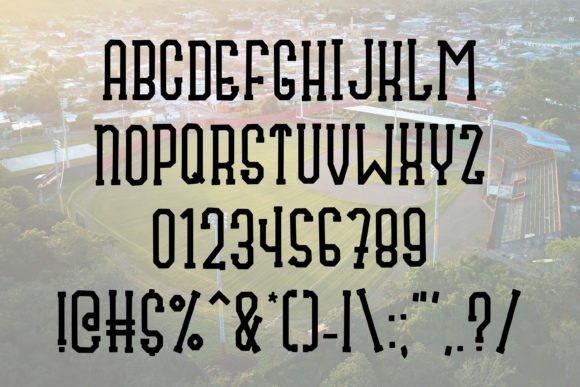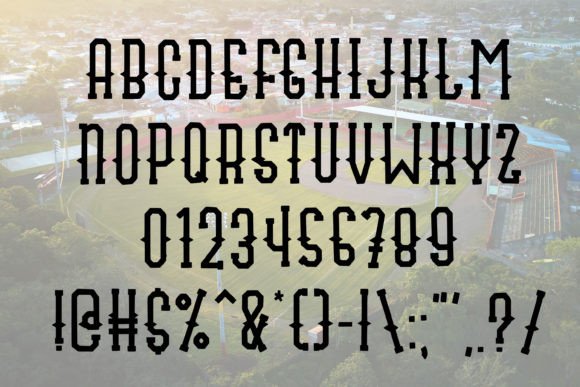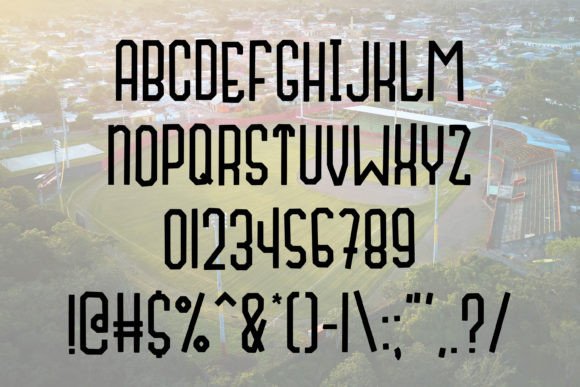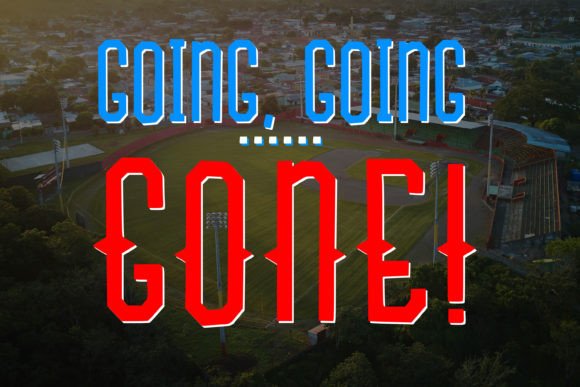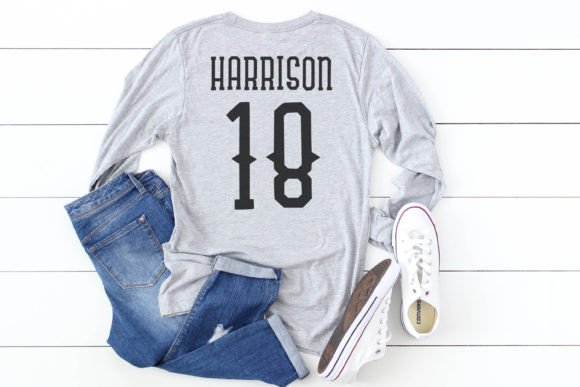
Introducing Fly Ball Font: The Ultimate Choice for Energetic Designs
Are you looking for a typeface that can add a punch of athletic spirit to your designs? Look no further than Fly Ball Font, a bold and sporty font that’s perfect for creating energetic designs with a vintage flair. In this article, we’ll explore the features and benefits of Fly Ball Font, and how it can elevate your designs to the next level.
The Perfect Blend of Strength and Nostalgia
Fly Ball Font is a bold, blocky typeface that’s reminiscent of classic sports signage. Its strong, sturdy letters are designed to evoke the energy and excitement of sports events, making it the perfect choice for team logos, sports events, and any project that needs a bold, athletic look. But what sets Fly Ball Font apart is its retro styling, which adds a nostalgic touch to your designs. Whether you’re crafting a modern design or a throwback look, Fly Ball Font is the perfect choice.
Key Features of Fly Ball Font
- Bold and Blocky Letters: Fly Ball Font features strong, blocky letters that are perfect for creating eye-catching designs.
- Retro Styling: The font’s retro styling adds a nostalgic touch to your designs, making it perfect for both modern and throwback designs.
- Athletic Spirit: Fly Ball Font is designed to evoke the energy and excitement of sports events, making it perfect for team logos, sports events, and athletic designs.
- Versatile: Fly Ball Font is versatile and can be used for a wide range of design projects, from posters and titles to logos and branding.
Uses for Fly Ball Font
Fly Ball Font is perfect for a wide range of design projects, including:
- Team Logos: Fly Ball Font is perfect for creating bold, eye-catching team logos that will stand out on jerseys, hats, and other merchandise.
- Sports Events: The font is designed to evoke the energy and excitement of sports events, making it perfect for creating posters, flyers, and other promotional materials.
- Posters and Titles: Fly Ball Font is perfect for creating bold, eye-catching posters and titles that will grab attention and add a punch of athletic spirit to your designs.
- Branding and Identity: The font’s retro styling and athletic vibe make it perfect for creating branding and identity materials that will stand out and leave a lasting impression.
Tips for Using Fly Ball Font
Here are a few tips for getting the most out of Fly Ball Font:
- Use it boldly: Fly Ball Font is designed to be bold and eye-catching, so don’t be afraid to use it in large sizes to make a statement.
- Experiment with colors: The font’s retro styling and athletic vibe make it perfect for using with bright, bold colors that will add energy and excitement to your designs.
- Pair it with other fonts: Fly Ball Font is versatile and can be paired with a wide range of other fonts to create interesting and dynamic designs.
Fly Ball Font is a bold, sporty typeface that’s perfect for creating energetic designs with a vintage flair. Its strong, blocky letters and retro styling make it perfect for team logos, sports events, and any project that needs a punch of athletic spirit. Whether you’re crafting a bold poster or an eye-catching title, Fly Ball Font delivers the baseball aesthetic and is sure to elevate your designs to the next level.